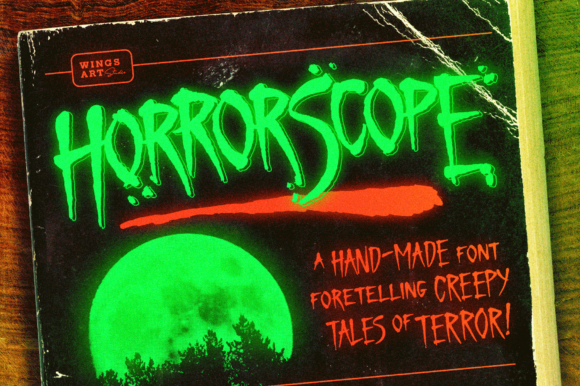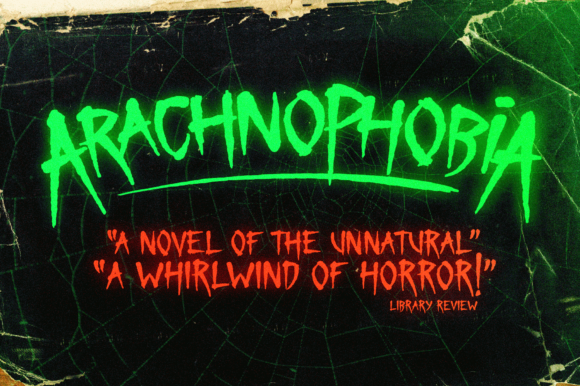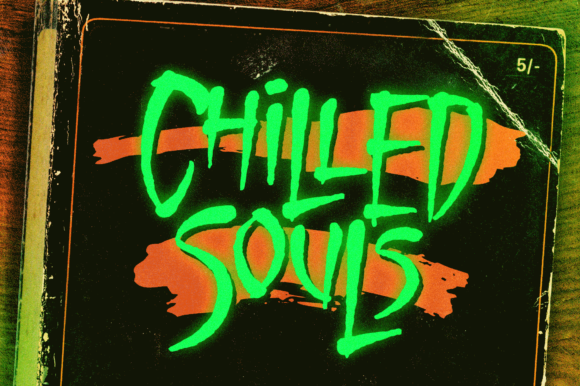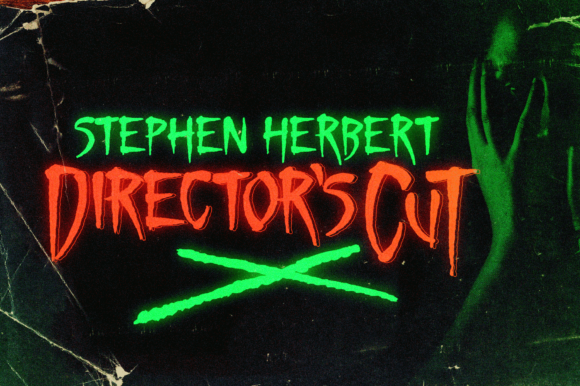
Horror Scope Font: Creepy Display Font for Halloween & Spooky Designs!
About the Horror Scope Font
The Horror Scope Font offers a perfect balance of form and function for your design needs. Horror Scope is a scary looking and cool display font. It is suitable for Halloween branding project like logos, t-shirt printing, sport designs, and more. It will look outstanding in a wide range of contexts.
Horror Scope’s aggressive, sharp forms make it ideal for headlines, posters, and branding projects needing a bold, edgy statement. It excels in applications where impact is paramount, such as horror movie posters, Halloween-themed merchandise, or the logos of extreme sports brands. However, its highly stylized nature makes it unsuitable for body text or UI elements requiring high readability.
Consider pairing Horror Scope with a clean sans-serif like Open Sans for contrast, providing readability where needed. Alternatively, a more playful, rounded sans-serif such as Bubblegum Sans could add a touch of ironic counterpoint, softening the font’s aggressive edge for certain applications. Avoid pairing it with other highly decorative fonts to prevent visual clutter.
The font’s core personality is undeniably bold and rebellious, conveying a sense of thrill and danger. It’s best suited for brands and projects that wish to project a powerful, uncompromising image.